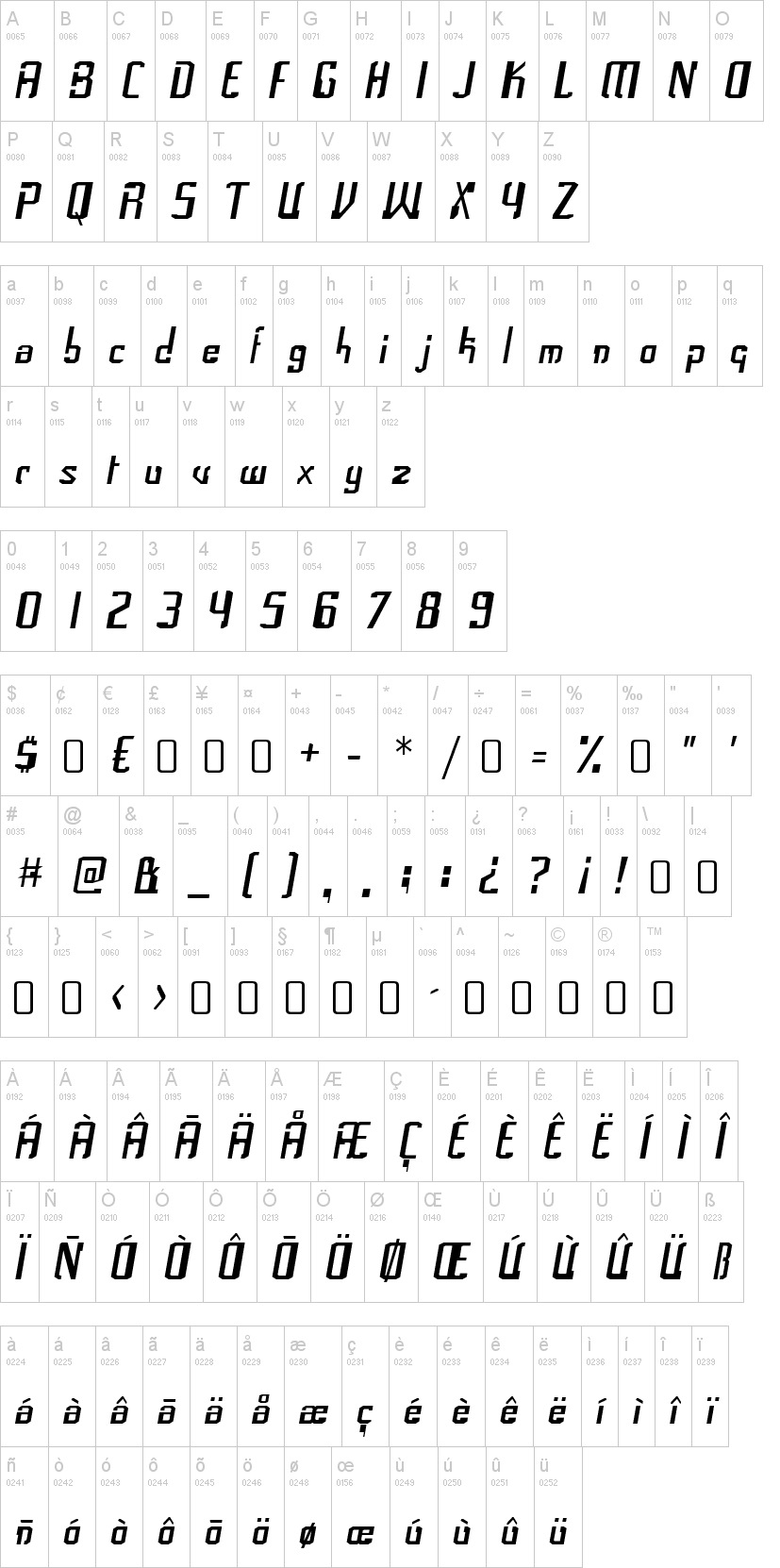
Шрифт Frak
Frak is an incongruous science fiction font made from old spaceship parts. Don't forget to read the files inside the zip for details. Updated in 2012.